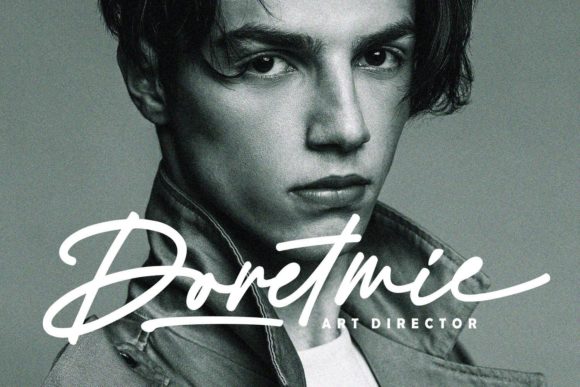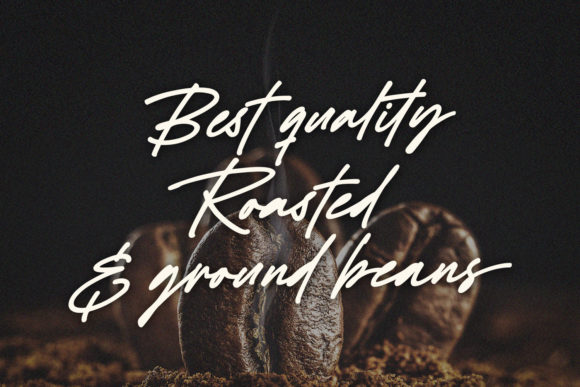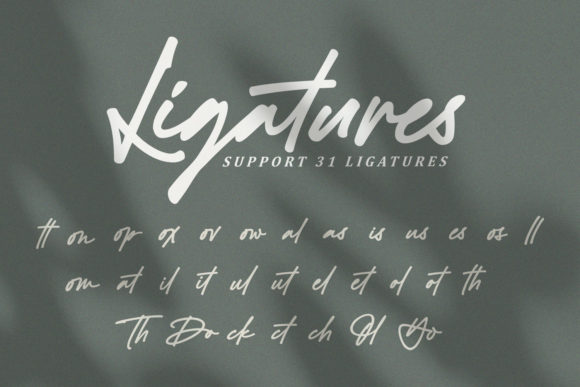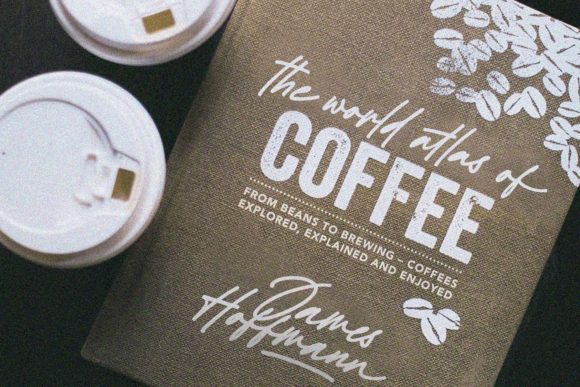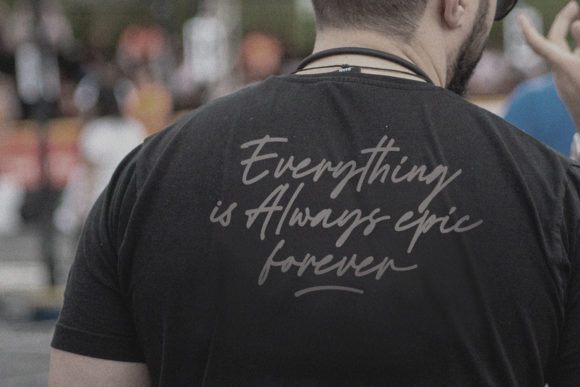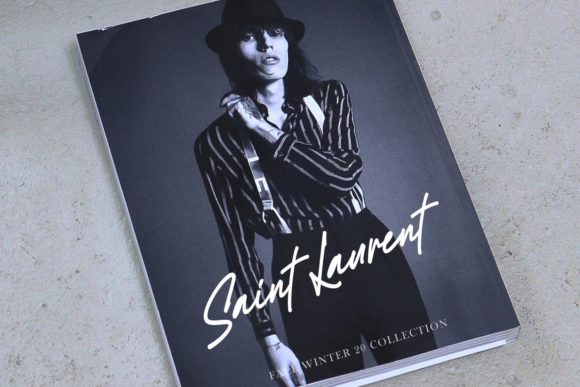
Unleash Your Creativity with Black Signatures Font
Have you ever stared at a blank page, trying to find the perfect words to express your artistic vision? For many designers, this is a familiar feeling. But what if you had the perfect tool to bring your ideas to life? Enter Black Signatures Font, a stunning script font that’s sure to elevate your creations.
This fashionable font is more than just a pretty face – it’s a powerful tool that can transform any project. With its PUA encoding, you’ll have access to a wide range of glyphs and swashes, giving you the flexibility to create unique and eye-catching designs. Whether you’re a seasoned pro or just starting out, Black Signatures Font is a valuable addition to any font library.
Key Features of Black Signatures Font
- Font Family: Black Signatures Font is a unique, handwritten font family designed to evoke the feel of a signature.
- Unique Characteristics: Features a distinctive, cursive style with varying line widths and flourishes, adding a touch of personality to designs.
Designer Review: Black Signatures Font
Overall, I think the Black Signatures Font has some great qualities, but it also has some limitations that might make it less suitable for certain projects.
- ✨ Elegant and sophisticated design: The font has a classic, high-end feel that would be perfect for luxury brands or formal documents.
- ✨ Versatile: Black Signatures Font comes in a range of weights, from light to bold, making it suitable for various applications, from body text to headings.
- ✨ Good legibility: The font is easy to read, even at smaller sizes, making it a great choice for digital applications.
However, there are some limitations:
- ⚠️ Limited character set: The font only includes basic characters, so it may not be suitable for languages that require a wider range of characters.
- ⚠️ No bold italic: While the font has a range of weights, it doesn’t include a bold italic style, which might limit its use in certain applications.
Overall, I think the Black Signatures Font is a great choice for projects that require a sophisticated, elegant look. However, its limitations might make it less suitable for more complex or multicultural projects.
Tips for Getting the Most Out of Black Signatures Font
Use Black Signatures Font for creating elegant and sophisticated designs, especially for invitations, wedding stationery, and luxury branding materials.
To achieve the best results, use Black Signatures Font in combination with high-quality images and bold, contrasting colors.
Experiment with different font sizes and styles to create a unique and eye-catching design.
Black Signatures Font is commonly used for:
Wedding stationery (invitations, save-the-dates, etc.)
Luxury branding materials (logos, business cards, etc.)
High-end invitations and event materials
Formal business correspondence and presentations
Alternatives to Black Signatures Font
Great Vibes is a modern calligraphy font that can be used for various design projects, including wedding invitations, logos, and branding materials. It is more elegant and refined compared to Black Signatures Font, which has a more bold and dramatic feel. Great Vibes is ideal for designers who want to create a sophisticated and high-end look.
Q: Does the Black Signatures Font include any special features or effects?
Yes, the Black Signatures Font includes a range of advanced OpenType features, including ligatures, swashes, and contextual alternates. These features allow you to create intricate and sophisticated typography with ease, adding an extra layer of sophistication to your designs.